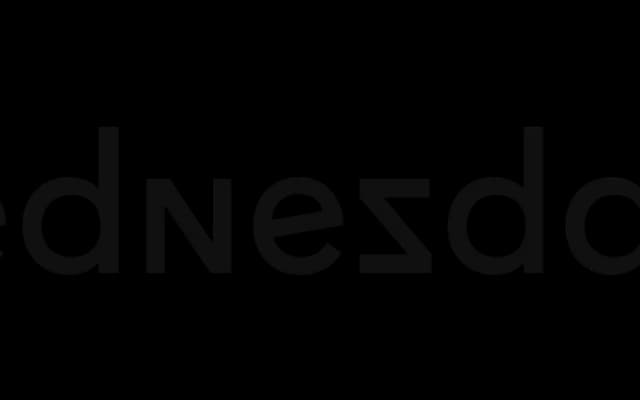
Fugue
Radim Pesko · 2008
A geometric sans conceived as a dialogue with Paul Renner, first used in a commemorative book for the Werkplaats Typografie in 2008.
Originally drawn at a single size of twelve points, Fugue was built as a considered return to the principles behind Futura and its designer Paul Renner. The family includes Regular and Regular Italic, each with two stylistic sets and double-storey alternates for 'a' and 't', alongside a Monospace and the display-oriented Head and Tails styles added in 2016. It covers Latin and Cyrillic and has been used editorially by Pitchfork.
Fugue is explicitly conceived as a return to Paul Renner, placing it firmly in the geometric sans tradition, though its alternates and stylistic sets suggest some humanist inflection.